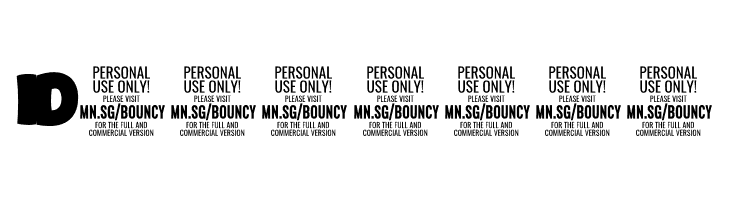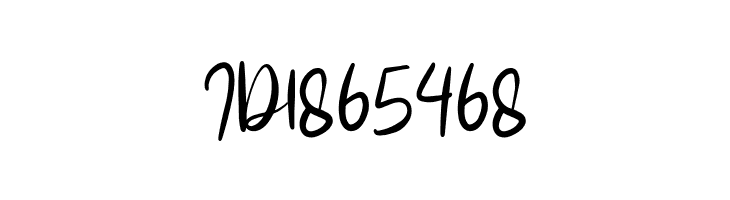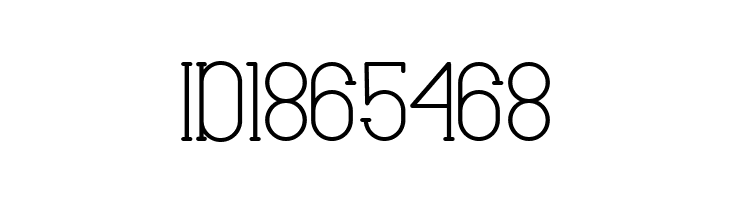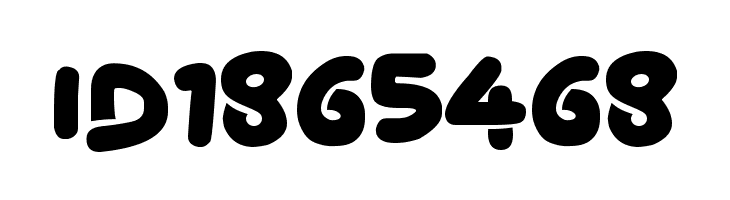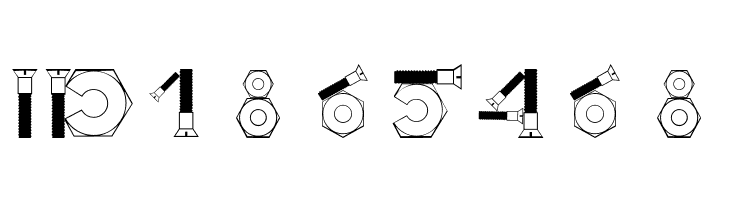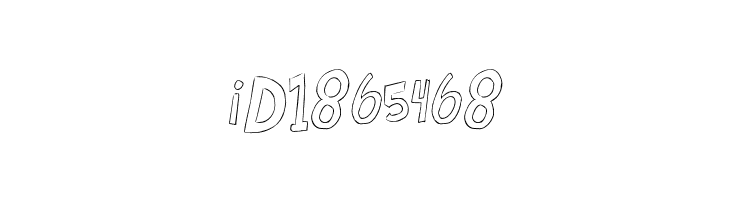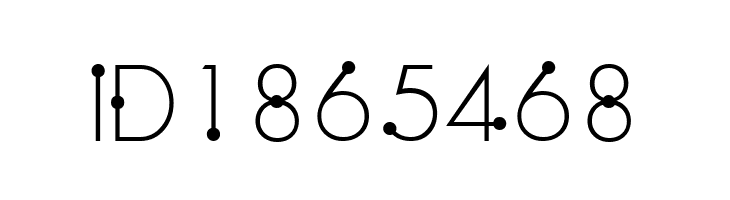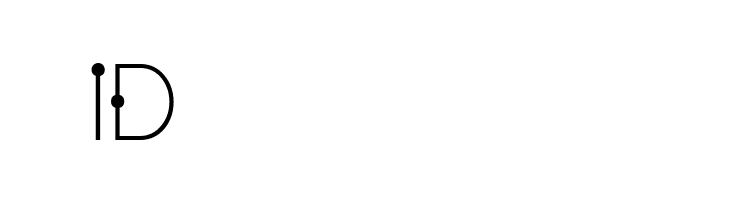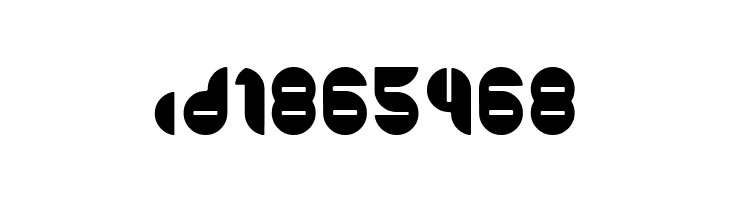
• Boulons Tryout
• BoumBoum [Free version]
( Fonts by www.matchfonts.com - Michel Bujardet )
A playful, geometric sans-serif font with decorative dots.
• BoumBoum Tryout
• Bounaville
A modern, elegant font with thin strokes and rounded terminals.
• Bouncer
• bounchy
A lively and playful script font with a hand-drawn aesthetic.
• BouncingontheWalls-Regular
( Fonts by Alex Tomlinson - Skyhaven Fonts - shfonts.com )
A playful, hand-drawn font with a lively, bouncy style.
• BOUNCY
A playful, handwritten font with a lively and bouncy style.
• Bouncy Balloons
( Fonts by Hawtpixel )
A bold, balloon-like decorative font with rounded, playful shapes.
• Bouncy Black PERSONAL USE ONLY
( Fonts by Mans Greback )
A bold, playful font with rounded, exaggerated shapes for a lively appearance.